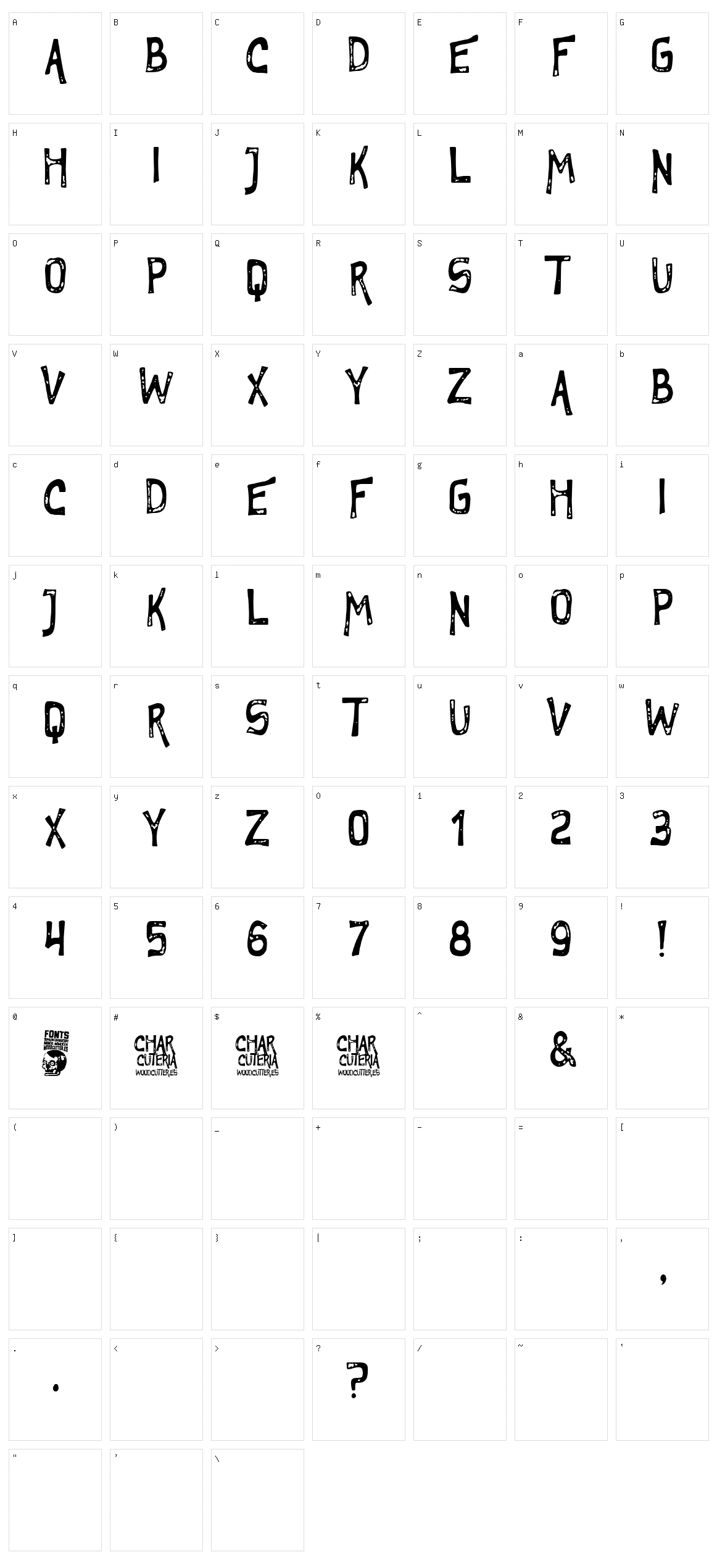
The free font Charcuteria is carefully designed by Woodcutter, showcasing a thoughtful balance of creativity and usability and falls under the Eroded font style. When you download the ZIP file, it contains only 50.67 KB of font files, making it lightweight and quick to download. Please review the license details below to understand permitted usage and distribution rights. If license information is not available, we recommend using this font for personal projects only or contacting the author directly for commercial usage permissions.